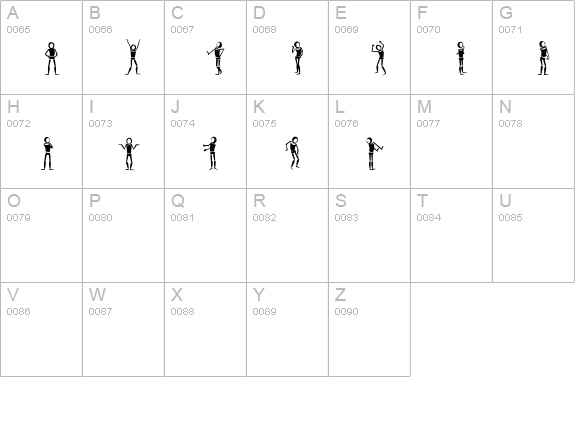
Stikpeop Font Details
Introducing Stikpeop Font, a modern and stylish typeface perfect for adding a touch of creativity to your designs. This versatile font features clean lines and a bold, eye-catching style that is sure to make your projects stand out. Whether you're designing a logo, poster, or website, Stikpeop Font is the perfect choice for adding a unique touch to your work. What's even better is that Stikpeop Font is completely free to download! Yes, you heard that right - this amazing font is available for free at FontsMarket.com. So go ahead and give your designs a fresh new look with Stikpeop Font today!